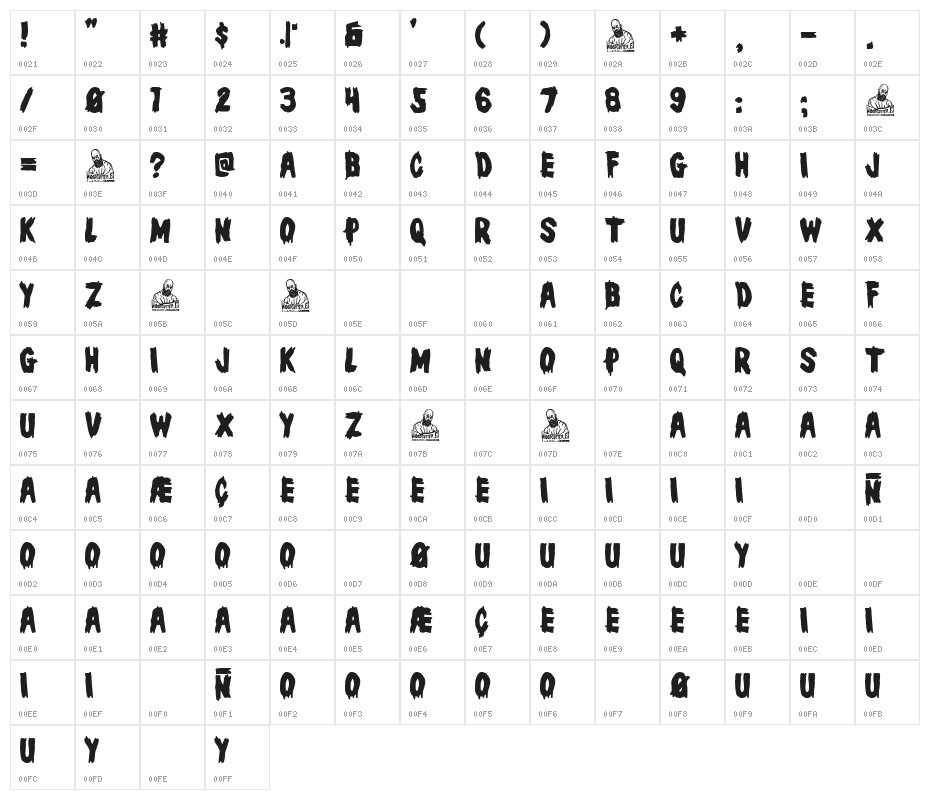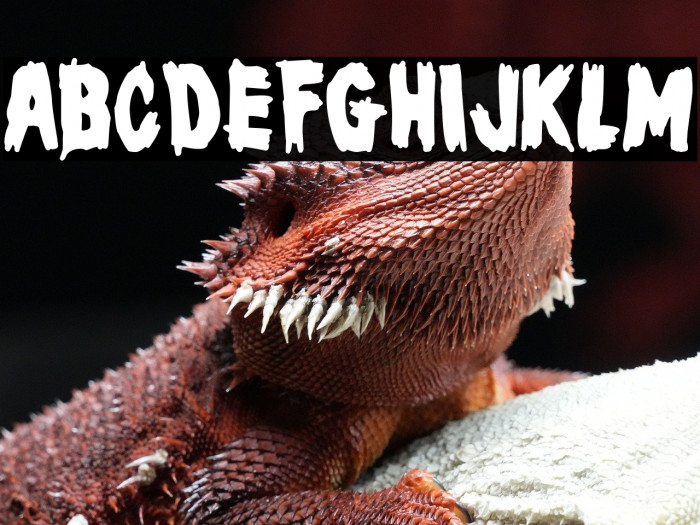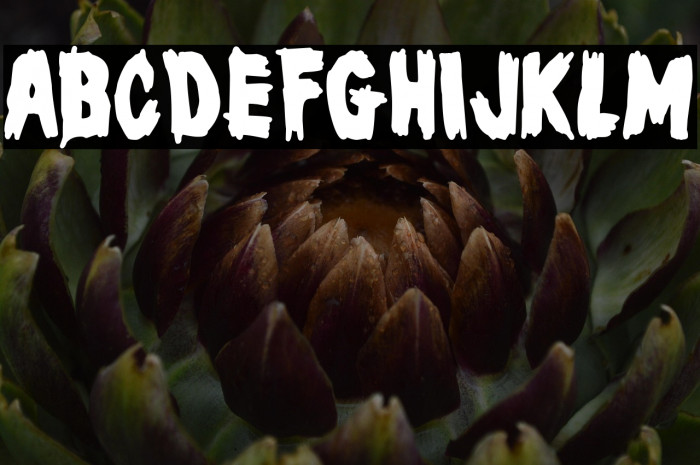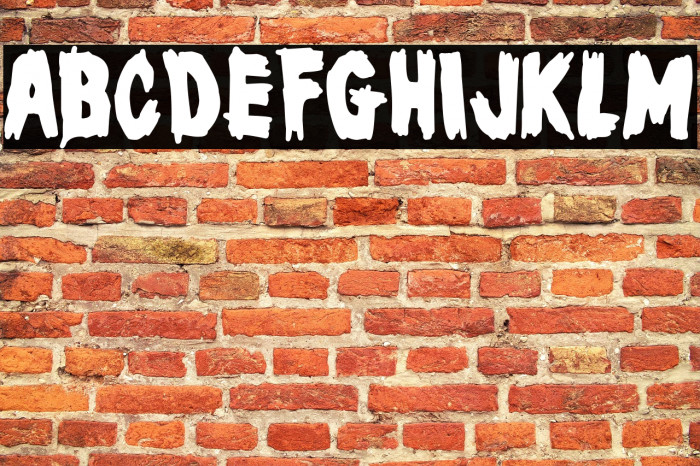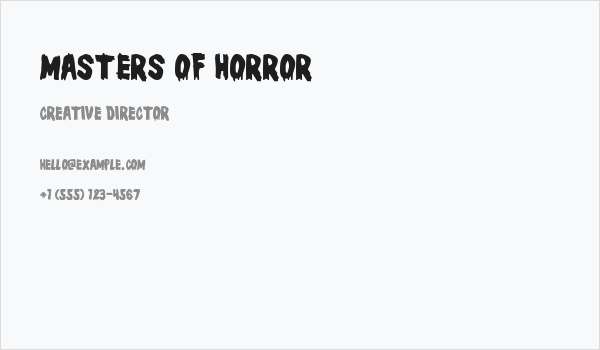
Masters of Horror Font
This font features a bold and dramatic style, reminiscent of classic horror movie posters. The letters are thick and uneven, with jagged edges that give a sense of urgency and intensity. The uppercase and lowercase characters maintain a consistent theme, with exaggerated strokes and a hand-drawn appearance. Numbers and special characters follow the same aesthetic, ensuring a cohesive look across all text elements. The font's unique style makes it perfect for projects that require a spooky or eerie atmosphere.
| Proposed Projects | Perfect for horror movie posters, Halloween event flyers, spooky-themed merchandise, and any design requiring a chilling effect. |